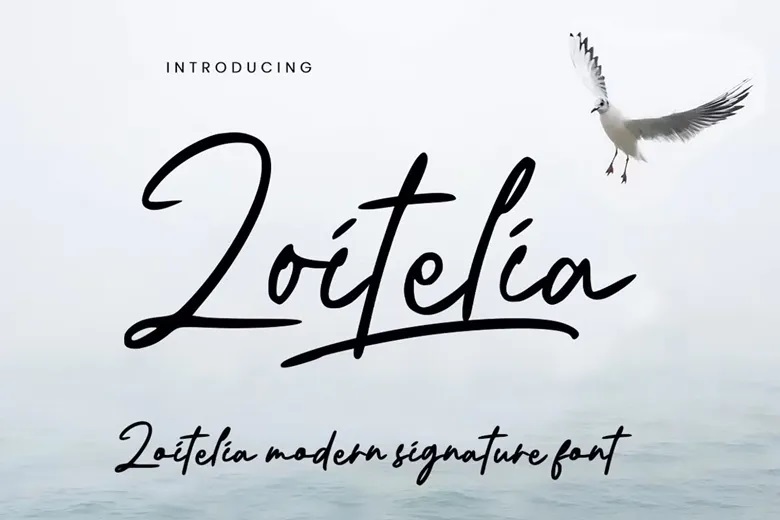
Zoitelia Font
Zoitelia is an elegant and modern signature typeface that was made specially by hands of expert with an aesthetic view, with soft and unique strokes, so this font looks so very beautiful and natural. This font is exactly for products that use simple, beautiful and enchanting handwriting impression that will make the design stand out! Zoitelia is offered in 2 weights, regular and bold.
Zoitelia is good for branding projects, logos, wedding designs, social media posts, advertisements, product packaging, product designs, labels, photography, watermarks, invitations, stationery and any project that requires a handwritten taste.
Zoitelia Signature Script Font